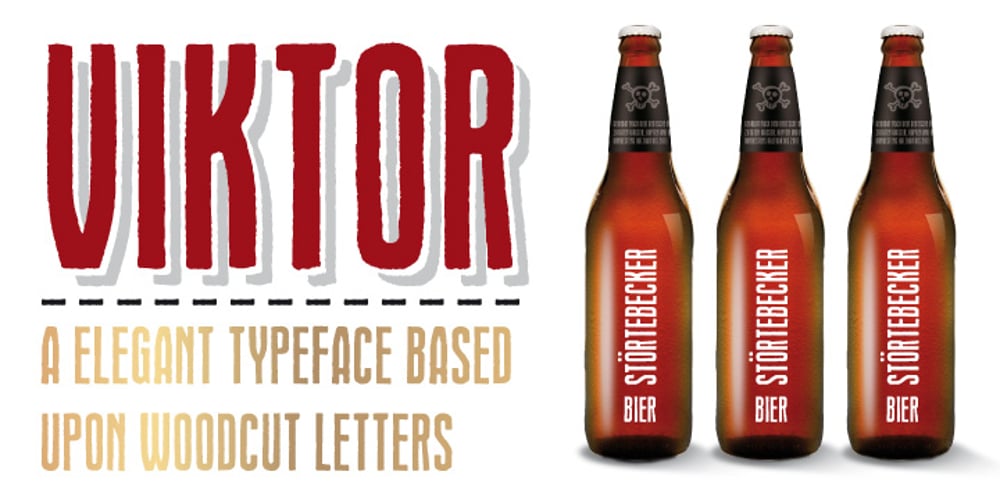
Viktor
Viktor Font Family was designed by Florian Zietz and published by Librito.de. Viktor contains 4 styles and family package options. The design for the font “Viktor” is based on original woodcut letters I purchased on a Flea Market. I handprinted the letters and converted the result into a font. The font preserves the rough and handmade character of the printed letters. To make the font more useful especially for packaging I designed in addition to the original font an outline version, a shadowed version and a striped font.